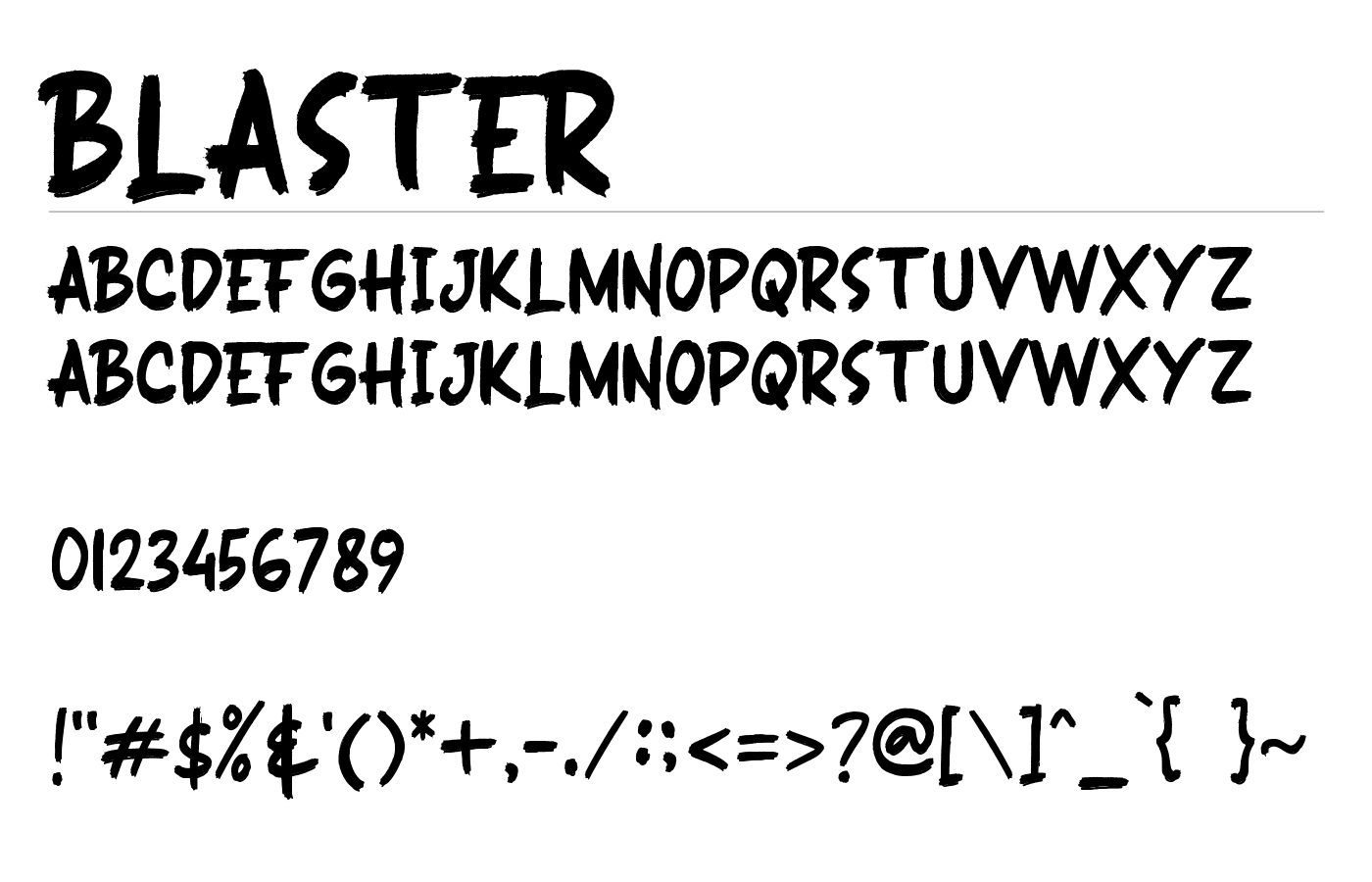
BLASTER is a bold, hand-painted sans serif font with a lively and energetic style, characterized by its rough, brushstroke texture and casual, slightly uneven letterforms. It offers an informal, dynamic feel that works well for designs needing a strong, creative impact such as posters, logos, and playful branding. This font brings a spirited, artistic vibe, making it ideal for projects that want to stand out with personality and a handcrafted touch.
BLASTER Font
About BLASTER Font